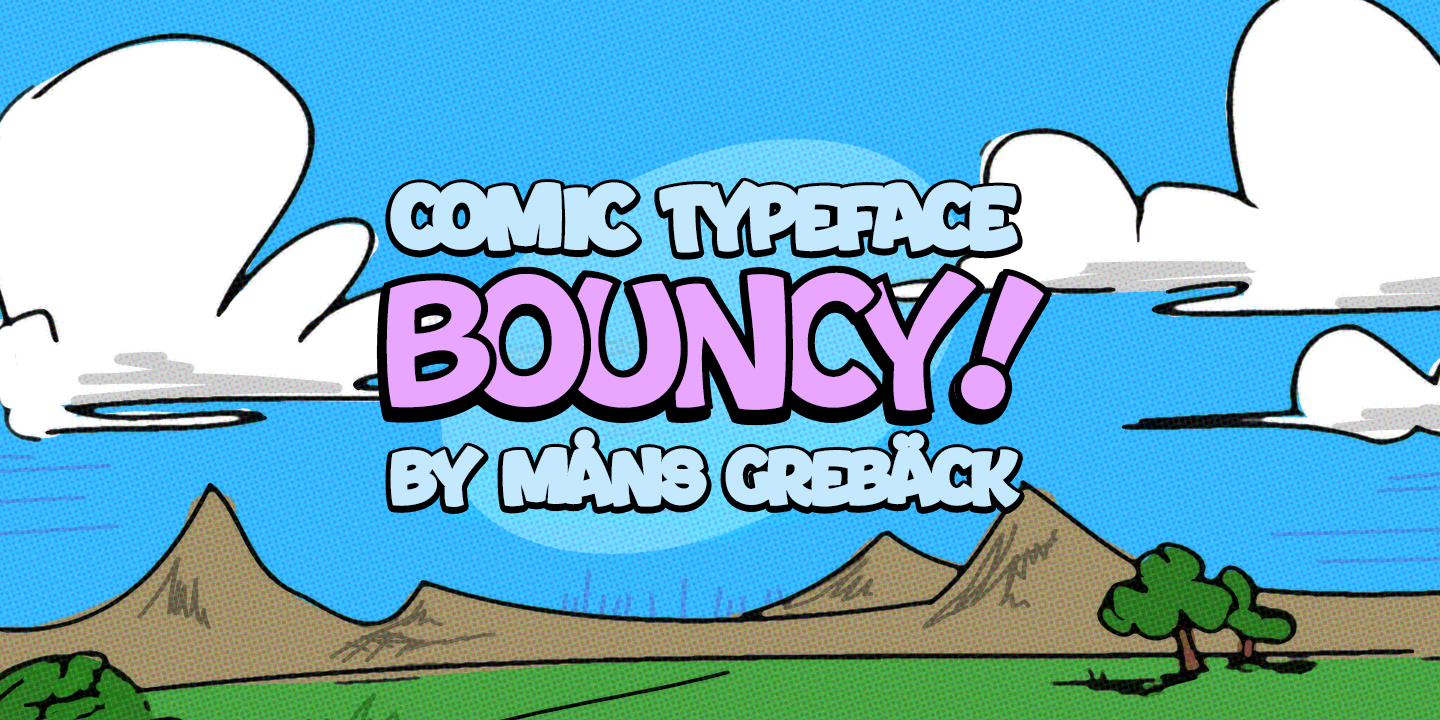
Bouncy Font is perfect for children's entertainment branding, playground equipment signage, bounce house party materials, energetic fitness campaigns, playful toy packaging, kids' activity centers, animated character designs, and joyful celebration graphics. This energetically playful typeface excels in projects requiring dynamic movement and infectious enthusiasm where boundless energy meets delightful visual communication.
What makes Bouncy Font exciting is its incredible capture of kinetic energy and playful movement through dynamically animated letterforms that literally bounce off the page with infectious enthusiasm. The font features lively characters with elastic proportions and springy details that convey joy, excitement, and the irrepressible energy of childhood play. Its energetic character makes it perfect for brands and projects celebrating movement, fun, and the pure joy of active play experiences.
Bouncy Font family includes multiple weights and energetic variations that enhance its playful appeal while providing design flexibility for active and children-focused applications. The family typically offers light, regular, medium, and bold weights, along with animated alternates, bouncing symbols, and playful ornaments that complement energetic and children's design themes perfectly.
Whether you're developing children's fitness program branding, creating playground marketing materials, or designing active entertainment campaigns, Bouncy Font Free Download provides the perfect energetic solution for projects celebrating movement and play. This font's dynamic appeal and playful energy make it essential for brands connecting with active families and energetic children who love movement and physical activity.
The dynamically crafted letterforms and bouncing proportions of Bouncy Font create immediate feelings of joy and movement that inspire physical activity while maintaining excellent readability across all energetic applications. Its distinctive bouncing personality and active symbolism make it an invaluable tool for designers working with children's entertainment, fitness, and active lifestyle brands. Download Bouncy Font today and add infectious energy to your creative projects with this dynamically playful typeface that perfectly captures the boundless enthusiasm of active play and joyful movement.